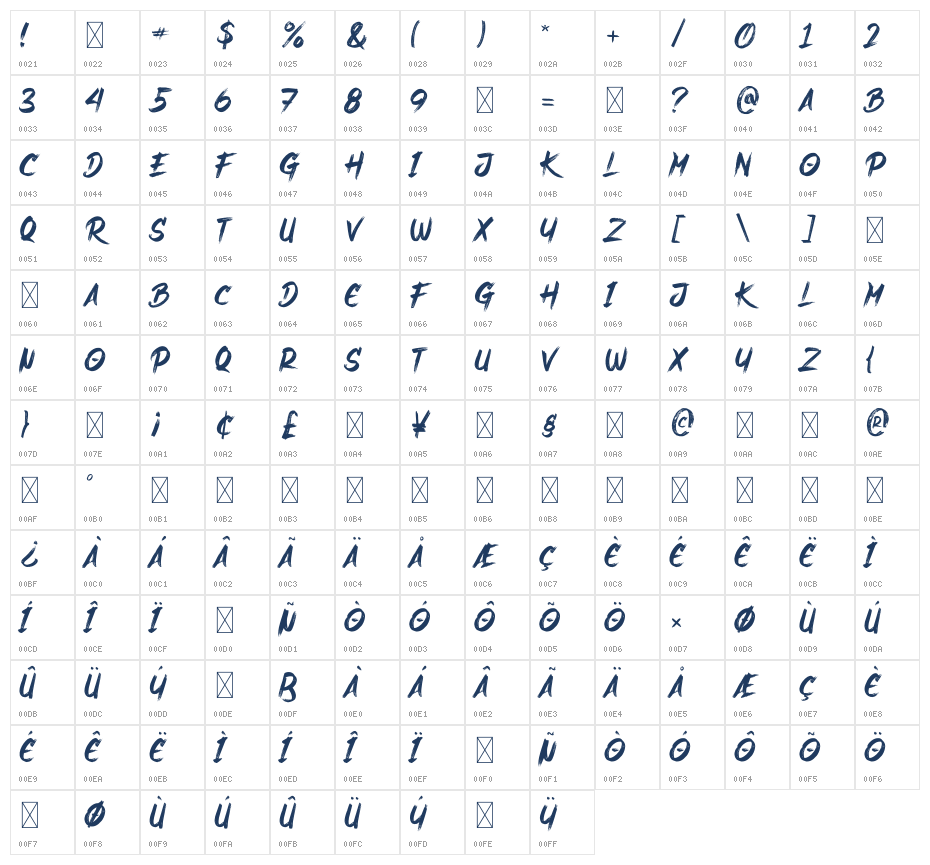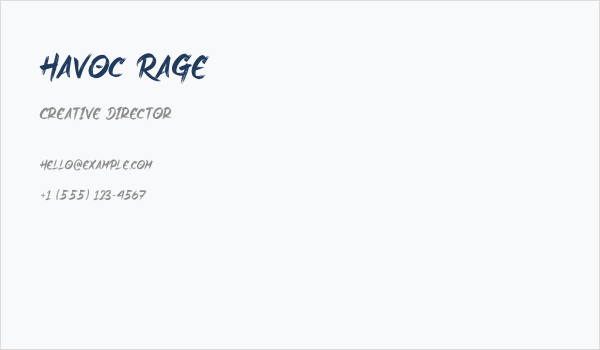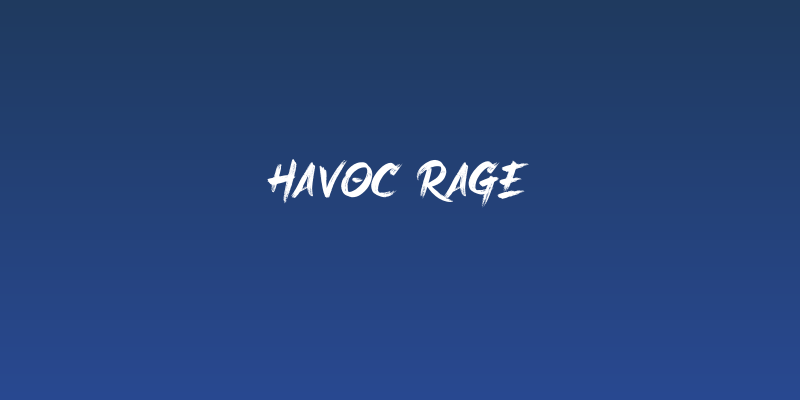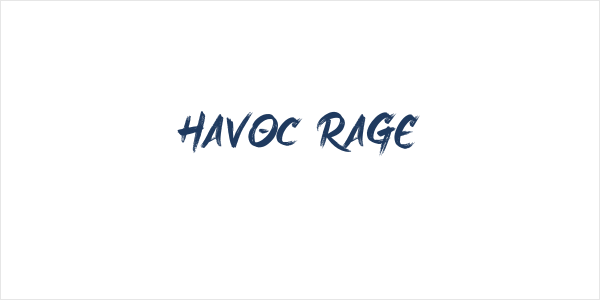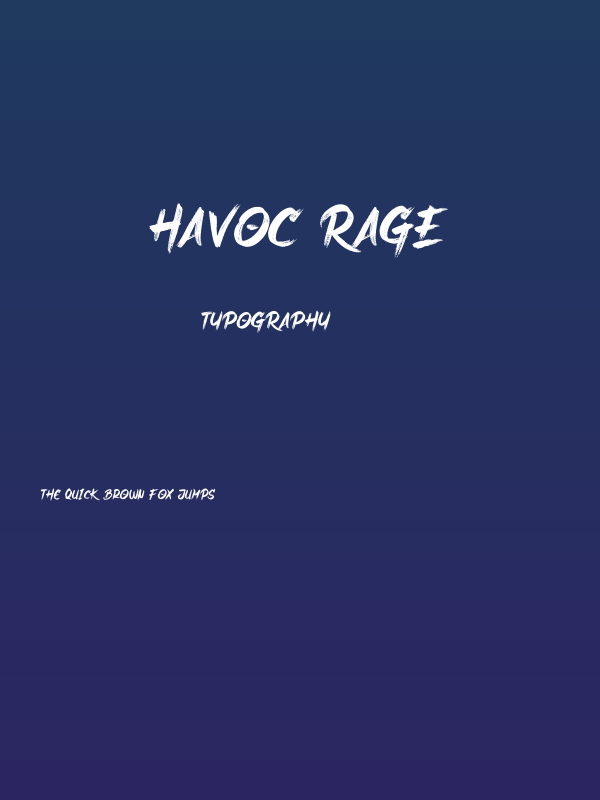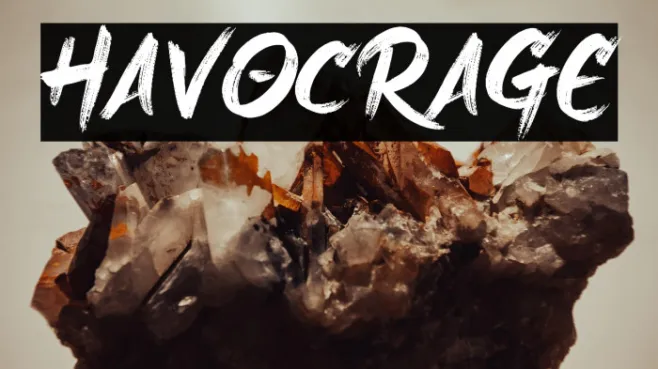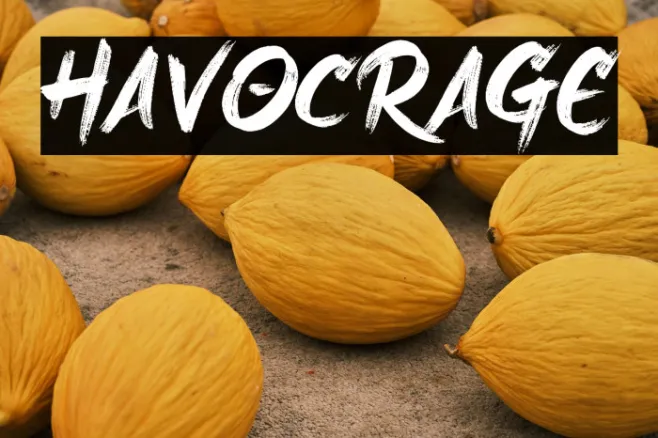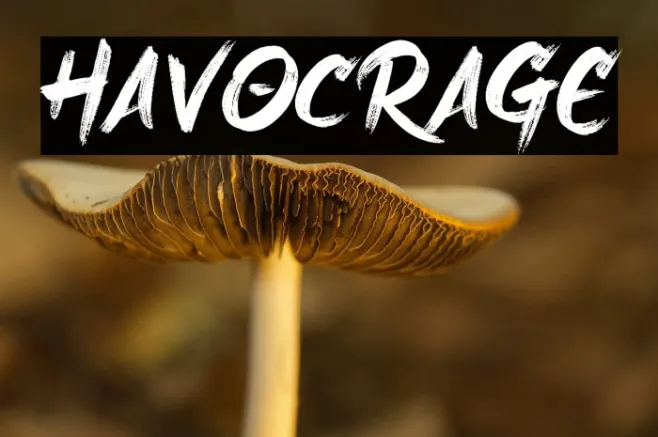
Havoc Rage Font
Havoc Rage Description
A bold, brush-stroke style script font with a casual, energetic appearance.
| Overall Style | Casual, Artistic, Expressive |
| Use Case | Headlines, Logos, Posters, Creative branding |